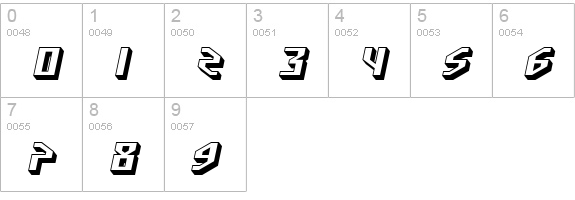
SF Funk Master Oblique Font Details
SF Funk Master Oblique is a distinctive, italic variant in the SF typeface family \xE2\x80\x94 well suited to design and typography projects.
SF Funk Master Oblique is a captivating and funky font that will add a touch of groove and originality to any design project. Its playful and dynamic letterforms are reminiscent of the vibrant and energetic atmosphere of the funk music scene. This font's slanted and oblique style gives it a unique and edgy look, making it perfect for logos, headlines, posters, album covers, and more. What sets SF Funk Master Oblique apart is not only its funky aesthetic, but also the fact that it is available for free. Yes, you read that right! This font can be downloaded free of charge at FontsMarket.com. Now you can unleash your creativity without any financial constraints, as SF Funk Master Oblique offers a high-quality typeface without the need to dig into your wallet. Whether you are a professional designer, a student, or simply a font enthusiast, SF Funk Master Oblique is a must-have addition to your font collection. Its versatility and distinct style make it suitable for a wide range of design projects, from music-related artwork to advertising campaigns. The bold and expressive nature of this font will ensure that your message stands out and catches the attention of your audience. So don't hesitate any longer! Head over to FontsMarket.com and download SF Funk Master Oblique for free today. Let your creativity flow and infuse your designs with the funky and lively spirit of this exceptional font. Get ready to groove to the rhythm of SF Funk Master Oblique and make your designs truly unforgettable.